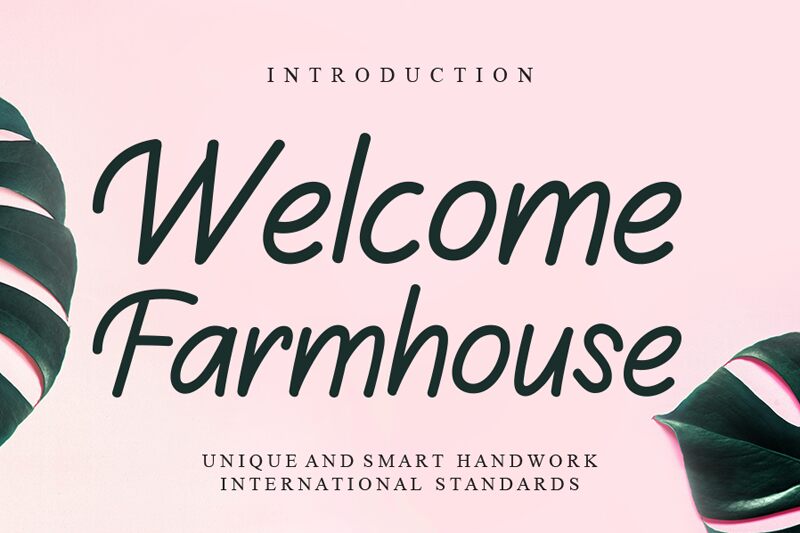
Welcome Farmhouse
Welcome Farmhouse font, crafted by the talented Scratchones, embodies a charming handwritten style that exudes warmth and personality. Featuring graceful strokes and a fluid design, this free font captures the essence of rustic elegance with a modern twist. Its unique character makes it perfect for adding a personal touch to your creative projects.
Ideal for invitations, branding materials, and home décor designs, Welcome Farmhouse effortlessly blends casual sophistication with creative flair. Enhance your projects with its inviting presence-download Welcome Farmhouse today for a fresh take on handwritten fonts!